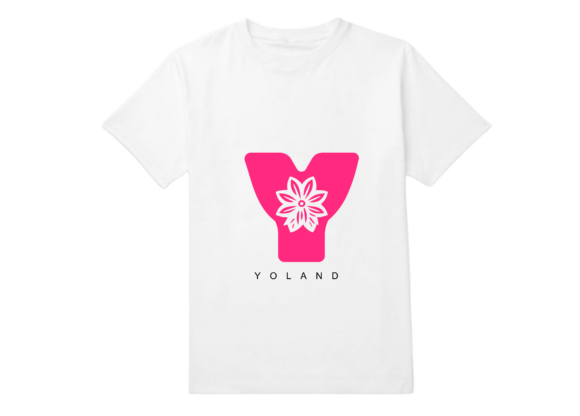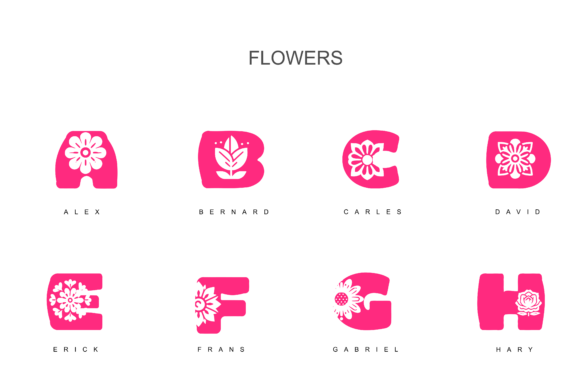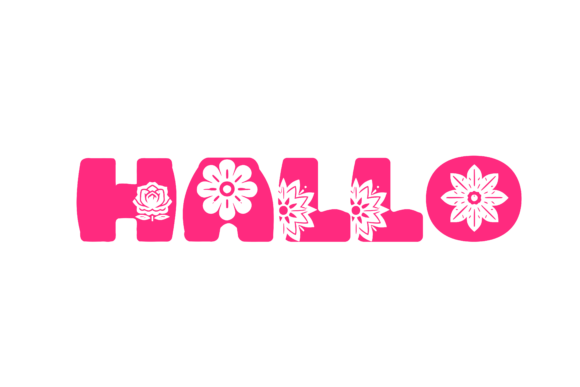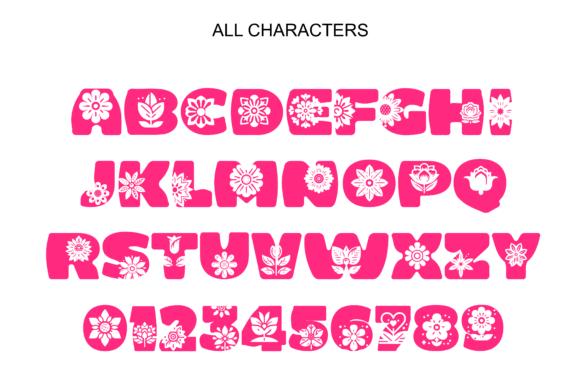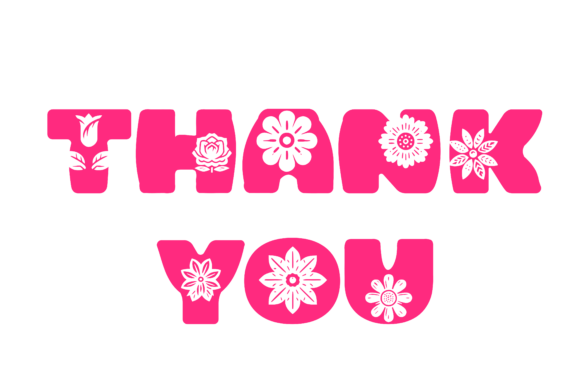
It’s in these moments that the Flowers Font comes alive, serving as a catalyst for your artistic vision. This enchanting typographic masterpiece is designed to unlock your full creative potential, providing a vibrant canvas for your imagination to flourish. As a valuable tool for designers, the Flowers Font offers an unparalleled level of creative freedom, allowing you to push the boundaries of typographic design and create truly breathtaking works of art.
Key Features of Flowers Font
- Font Family: A unique and elegant font family designed to resemble flowers.
- Resolution: Optimized for high-resolution displays, ensuring crisp and clear typography even at large sizes.
- Unique Characteristics: The font features intricate floral designs and patterns, adding a touch of elegance and sophistication to any design.
- Number of Glyphs: Includes a wide range of glyphs, including Latin, Cyrillic, and Greek alphabets, making it suitable for multilingual designs.
Designer Review: Flowers Font
Overall, I think Flowers Font is a unique and eye-catching choice for digital projects. ✨ The flowing, hand-drawn style really stands out and adds a touch of whimsy to any design. The font is highly customizable, with a wide range of colors and sizes available.
The font includes a lot of ornate details and flourishes, making it perfect for projects that require a touch of elegance. ✨ However, I did find that the font can be a bit overwhelming in certain contexts. The complexity of the design can make it difficult to read at smaller sizes or in smaller spaces.
- Unique, hand-drawn style
- Perfect for projects that require a touch of elegance
- Can be overwhelming in certain contexts
- Difficult to read at smaller sizes or in smaller spaces
- May not be suitable for projects that require a clean, simple design
- ⚠️ Limited font weights and styles available
Overall, I think Flowers Font is a great choice for designers who want to add a touch of personality to their projects. While it may not be suitable for every project, it’s definitely worth considering for those that require a more elegant, whimsical feel.
Practical Application Guide: Flowers Font
Tips for Getting the Most Out of it
Use the Flowers font to create a cohesive and visually appealing design. Pair it with a simple font for body text to avoid overwhelming the reader. Experiment with different font sizes, colors, and styles to add depth and interest to your design.
The Flowers font is ideal for:
- Floral-themed designs and graphics
- Children’s book illustrations and design
- Botanical and gardening-related projects